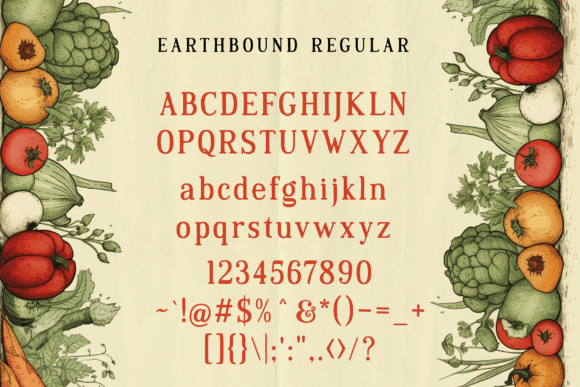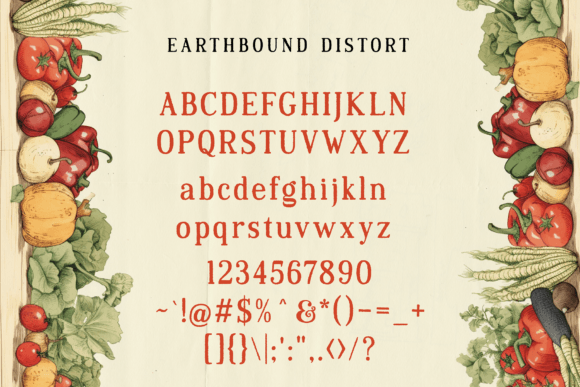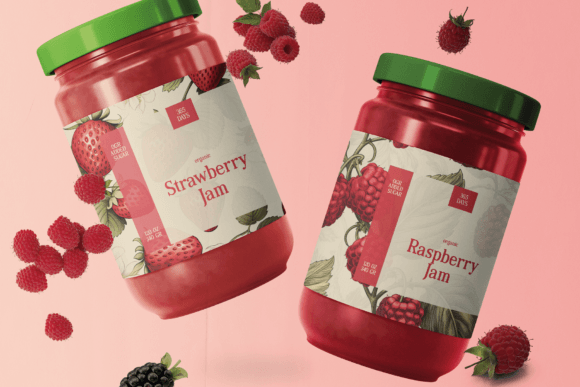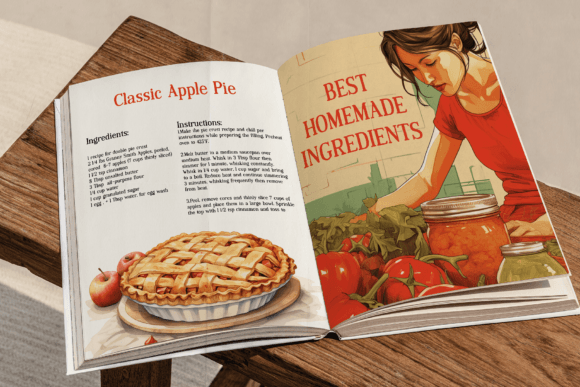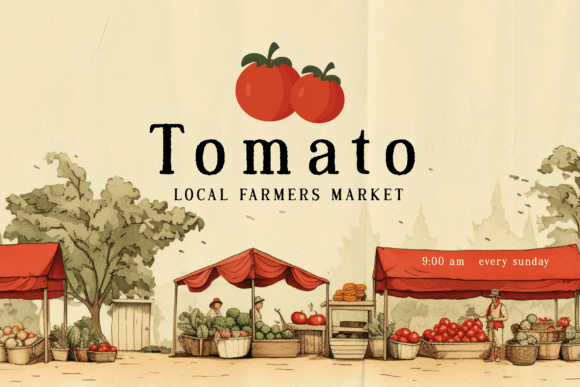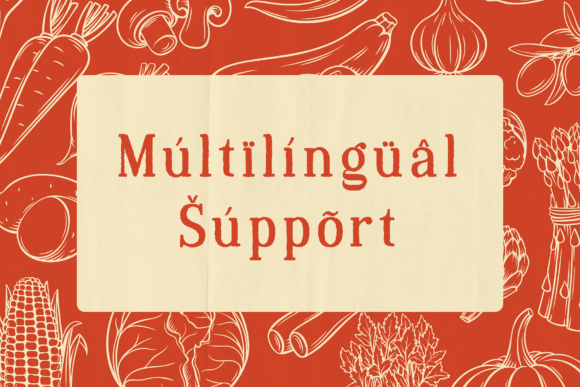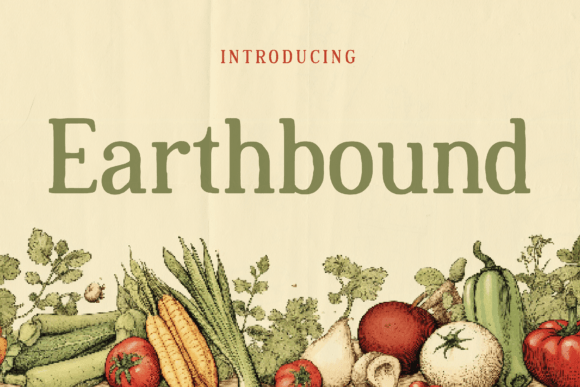
Earthbound Font: A Charming and Rustic Typeface for Your Design Needs
Are you looking for a typeface that captures the essence of rural life? Do you want to add a touch of simplicity, authenticity, and tranquility to your designs? Look no further than the Earthbound font, a charming and rustic typeface that is perfect for designers and crafters alike.
Inspired by Rural Life
The Earthbound font is inspired by the warm and welcoming world of farmsteads and country landscapes. Its letters are gently crafted, as if etched by hand onto wooden signs adorning barns and fences. This typeface is the perfect representation of the rustic and natural world, evoking feelings of peace and serenity.
A Typeface that Exudes Simplicity and Authenticity
Earthbound is a typeface that exudes simplicity and authenticity. Its rustic charm is perfect for designers who want to add a touch of rural life to their designs. Whether you’re working on a project for a farm, a country-themed restaurant, or a craft brewery, this typeface is sure to hit the right note.
The Earthbound font is perfect for designers and crafters who want to add a personal touch to their work. Its charming and rustic design makes it ideal for a variety of projects, including:
- Signage and branding for farms, country stores, and rural businesses
- Packaging and labeling for craft foods and beverages
- Invitations and stationery for rustic-themed weddings and events
- Digital and print materials for outdoor enthusiasts and nature lovers
What Makes Earthbound Unique?
So what makes the Earthbound font unique? Here are a few features that set it apart:
- Hand-crafted letters with a rustic, homespun feel
- Gently weathered edges and subtle imperfections for added authenticity
- A range of characters and glyphs for versatile design options
- Use it in combination with natural textures and imagery for a cohesive look
- Experiment with different font sizes and colors to add visual interest
- Pair it with other rustic or vintage typefaces for a unique design
The Earthbound font is a charming and rustic typeface that is perfect for designers and crafters who want to add a touch of rural life to their designs. Its hand-crafted letters and gently weathered edges give it a unique and authentic feel that is sure to resonate with anyone who loves the great outdoors. Whether you’re working on a project for a farm, a country-themed restaurant, or a craft brewery, this typeface is sure to hit the right note.